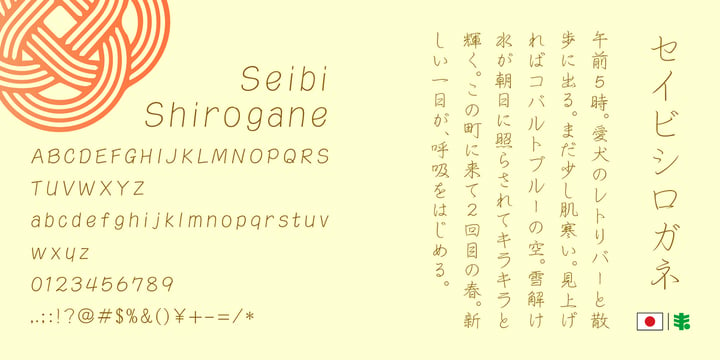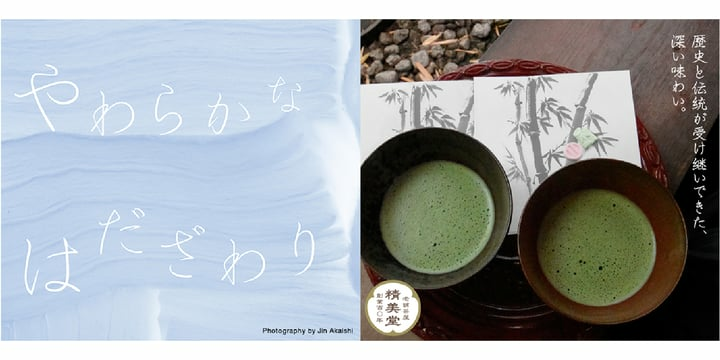
Seibi Shirogane Font | Latin, Cyrillic, Greek & Japanese
Seibi Shirogane Font | Latin, Cyrillic, Greek & JapaneseWith an attractive hand-penned style featuring a natural balance between kanji and kana, characters are perfectly aligned whether typeset vertically or horizontally. Leave plenty of space between lines for the best effect.